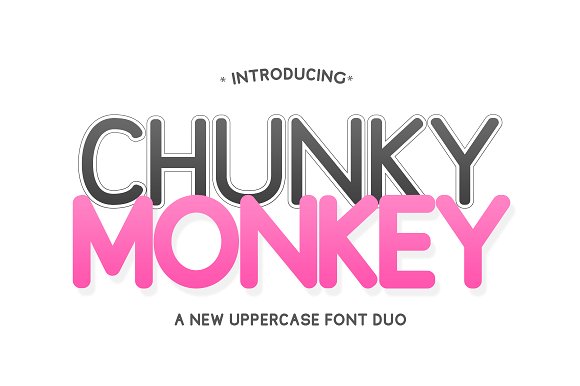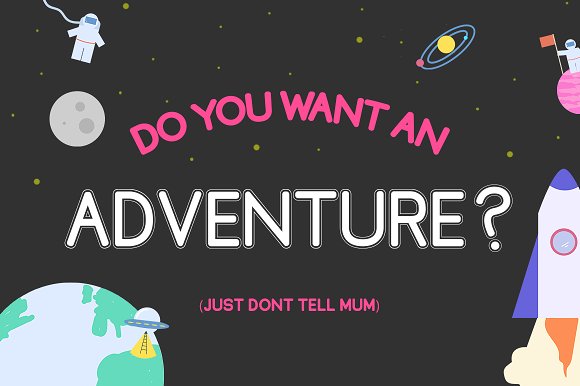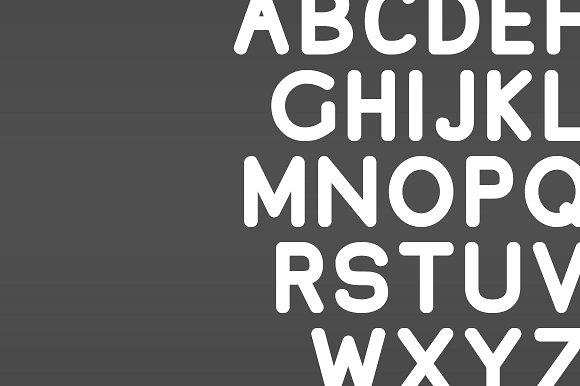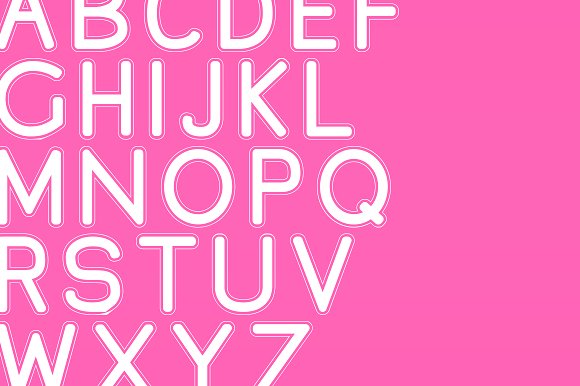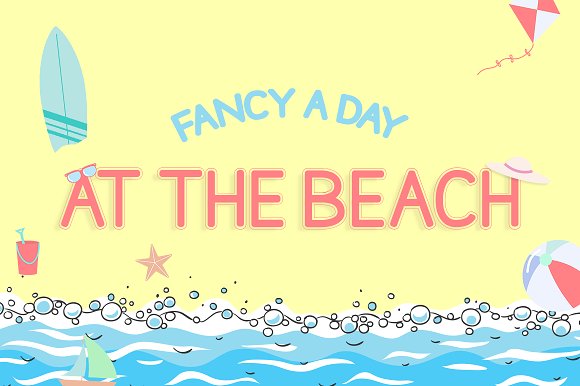
Chunky Monkey Font Duo
Introducing our latest creation Chunky Monkey, a duo of fonts in a single font file. Use the uppercase letters to display the thin outlined version (shown in the word Chunky above) and the lowercase letters for the more bold chunky text (shown in the word Monkey above)